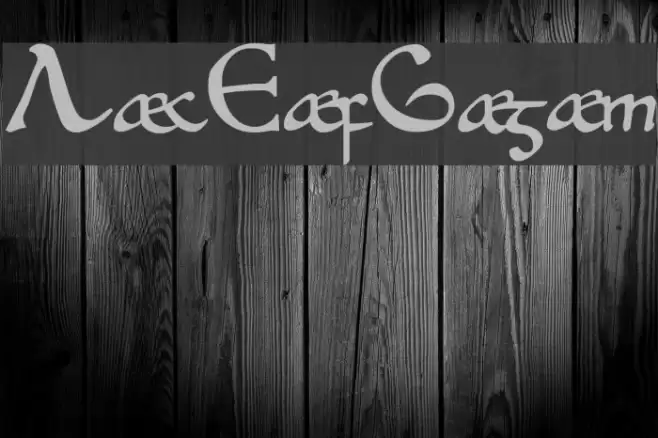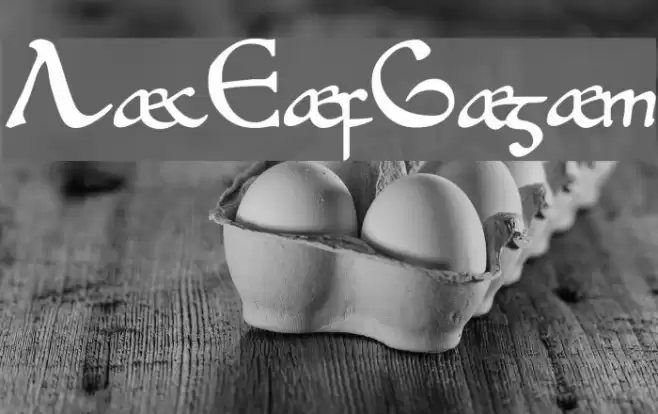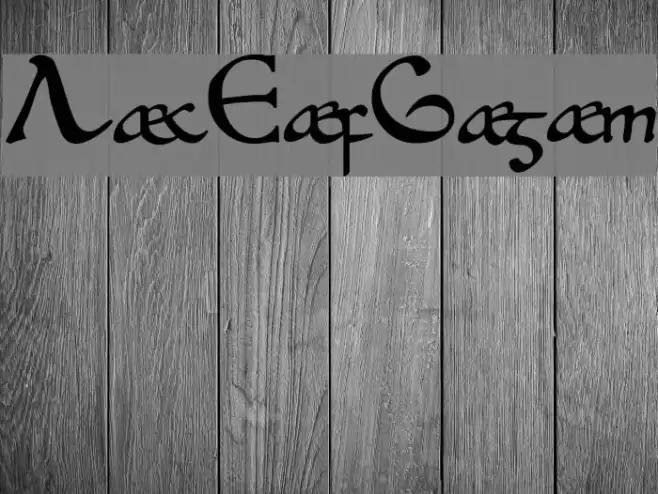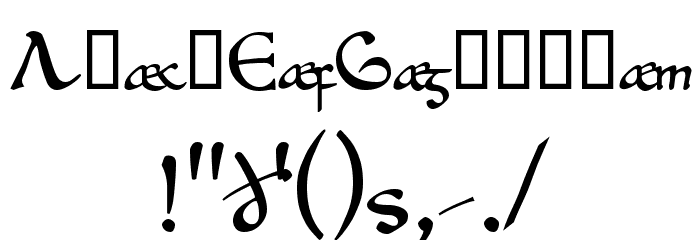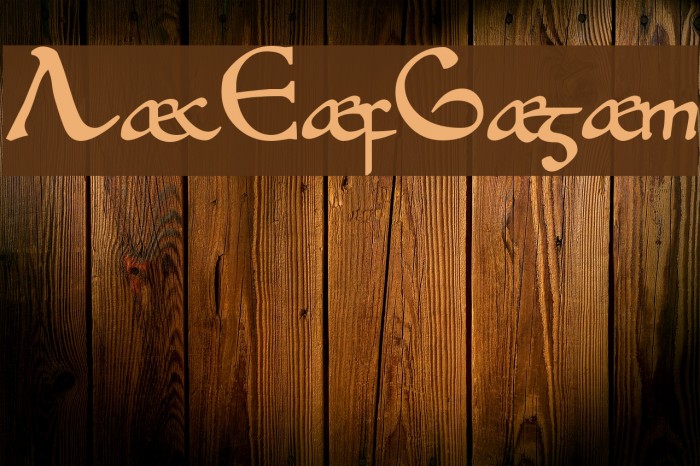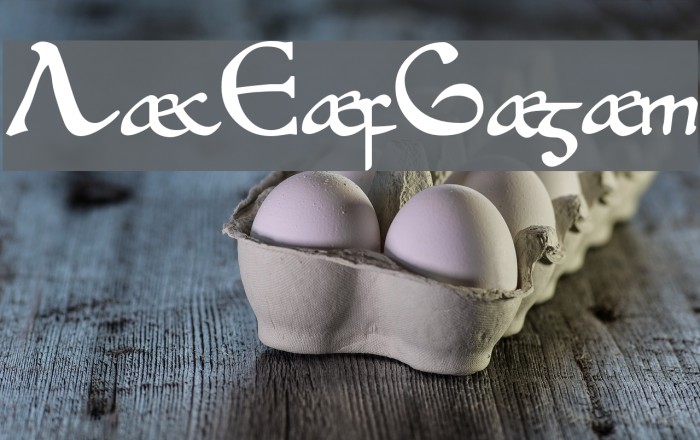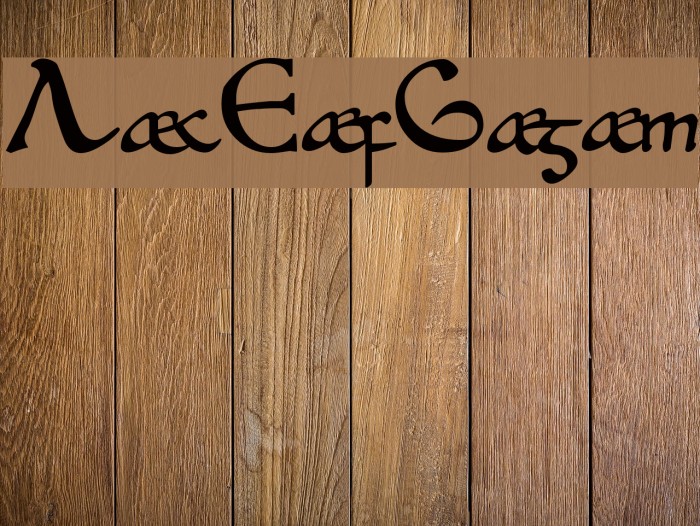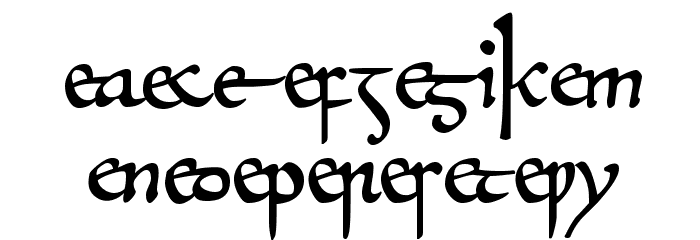
Beowulf1Alt Font
Beowulf1Alt Description
This font features a unique, medieval-inspired design with a distinctively ornate and decorative style. The characters exhibit a blend of sharp angles and smooth curves, creating an intricate and artistic appearance. The uppercase letters are bold and commanding, while the lowercase letters maintain a consistent flow with elongated ascenders and descenders. The numerals and special characters are crafted with the same attention to detail, enhancing the font's cohesive look. This font's aesthetic is reminiscent of ancient scripts, making it ideal for projects that require a historical or fantasy theme.
A medieval-inspired, ornate font with intricate details and a historical aesthetic from Uncategorized fonts.
- Proposed Projects: Ideal for fantasy book covers, historical-themed posters, medieval event invitations, and role-playing game graphics.
- Overall Style: Vintage
- Use Case: Logos, Headlines